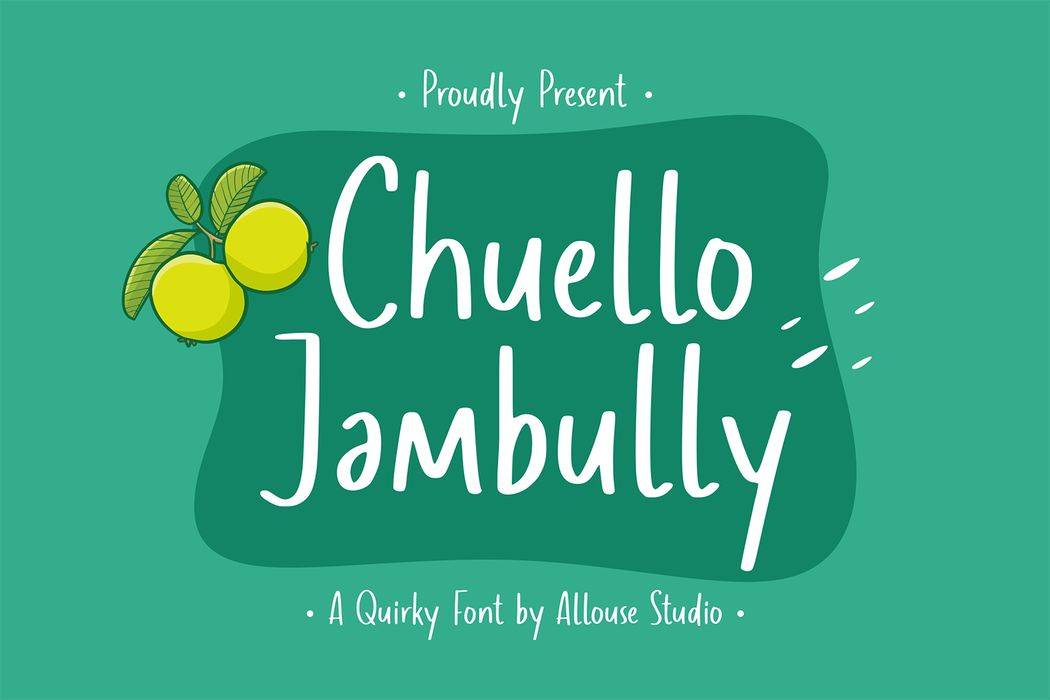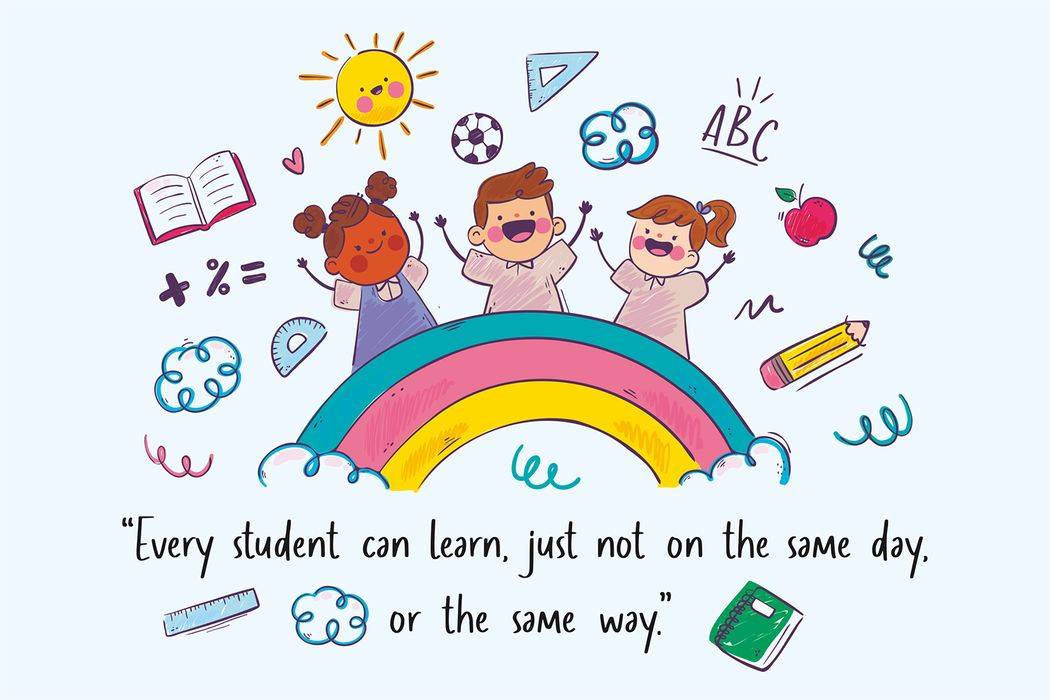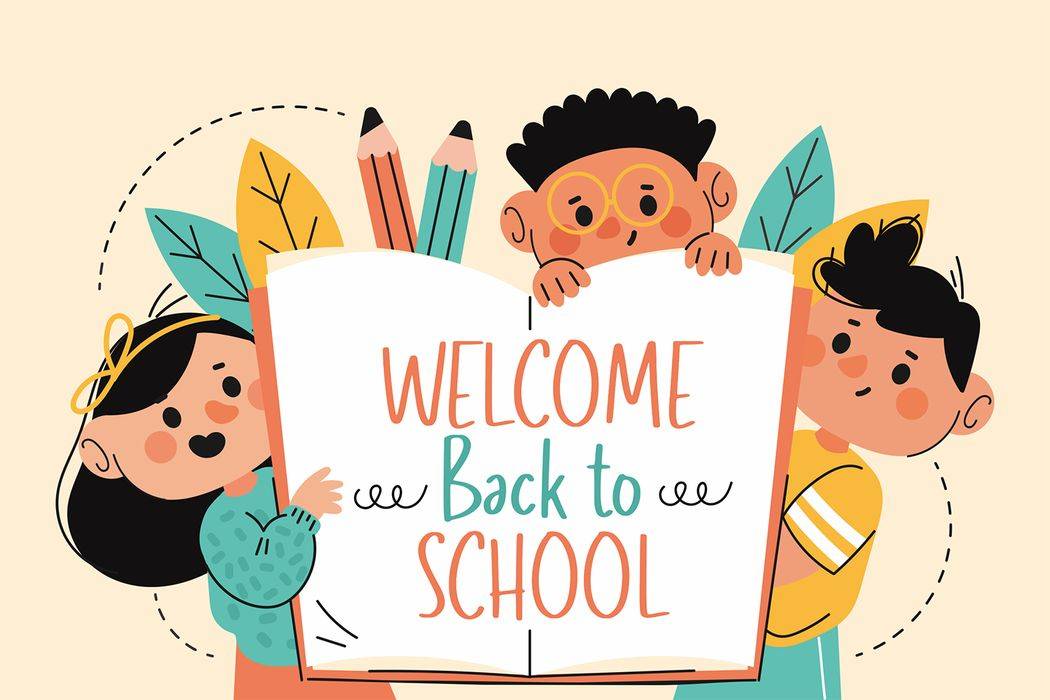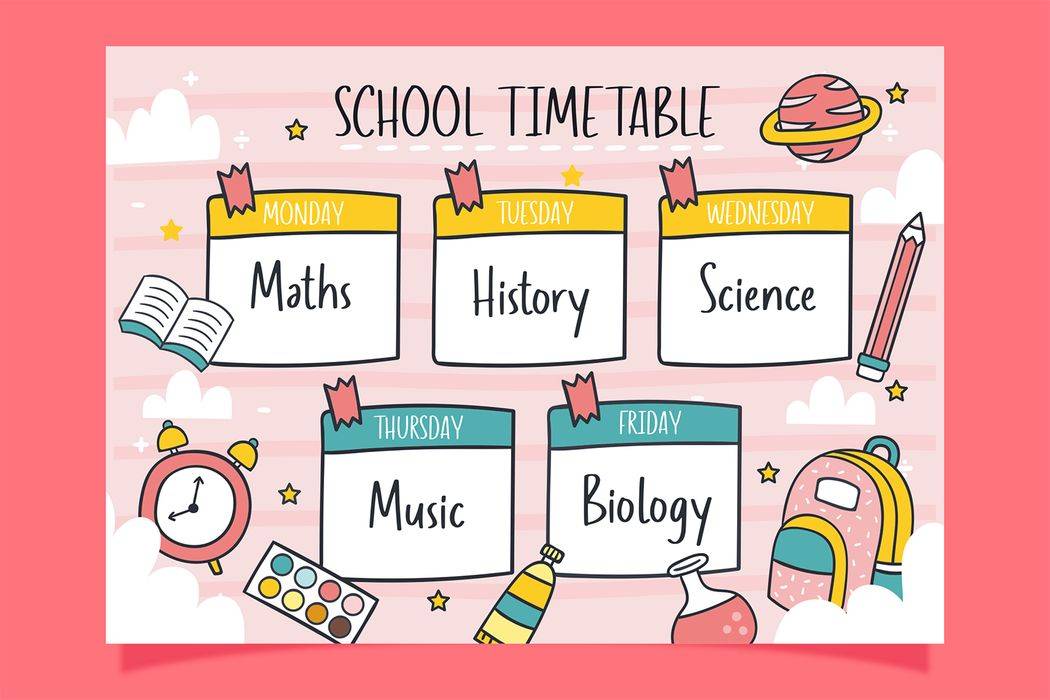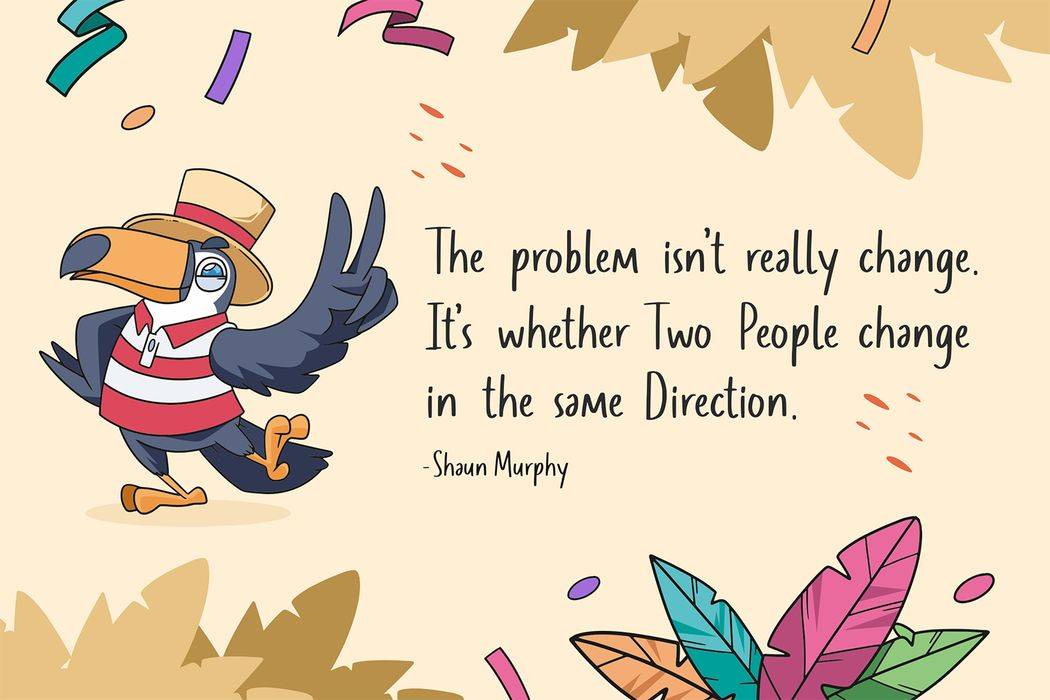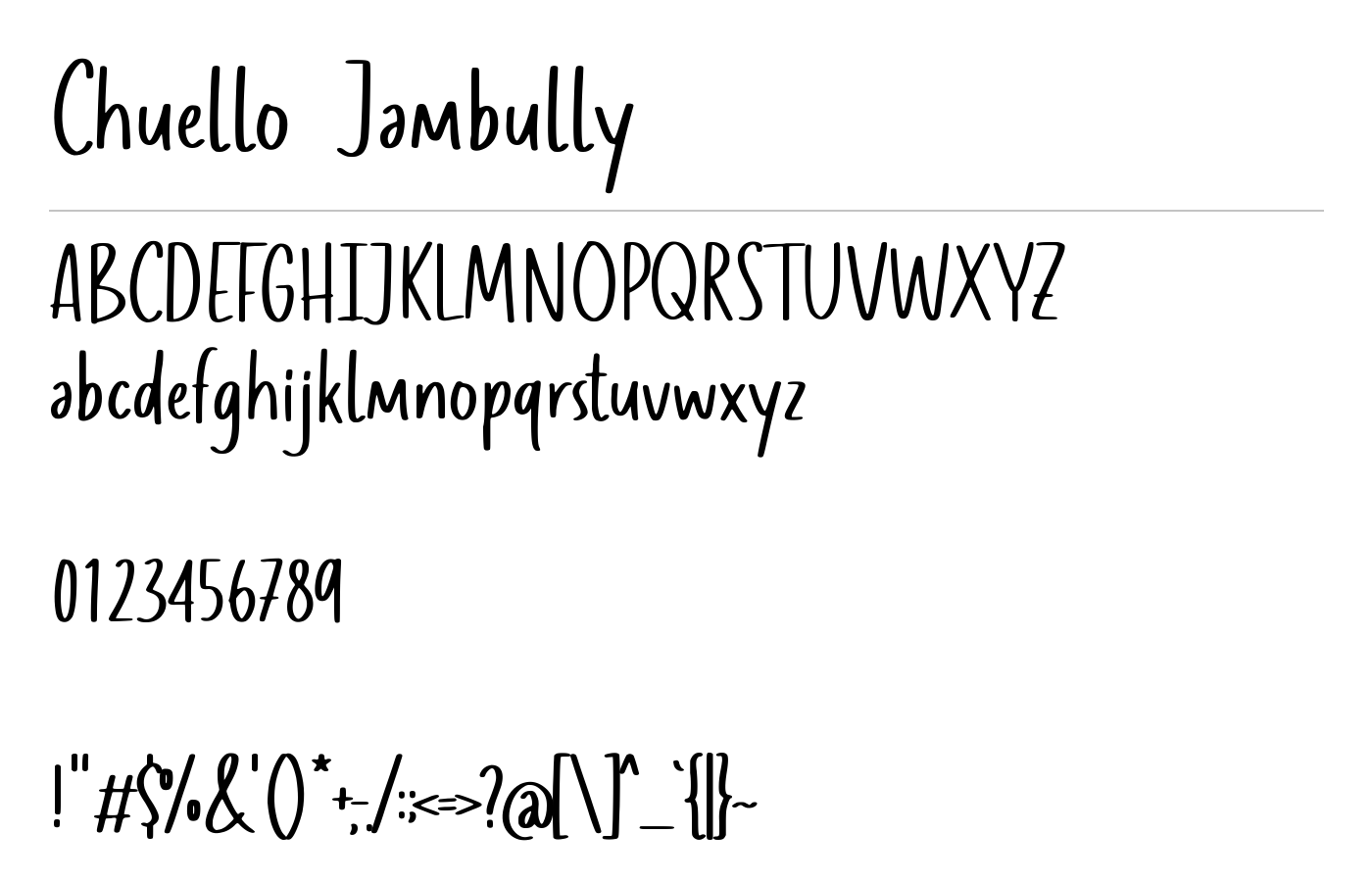
Chuello Jambully is a playful, handwritten sans serif font with tall, narrow letterforms and a casual, slightly irregular stroke style that adds personality and warmth. Its light weight and high x-height make it easy to read while maintaining an informal and friendly vibe, perfect for creative projects, children's materials, and casual branding. This font works well in logos, headlines, and invitations where a personal, approachable touch is desired.
Chuello Jambully Font
About Chuello Jambully Font